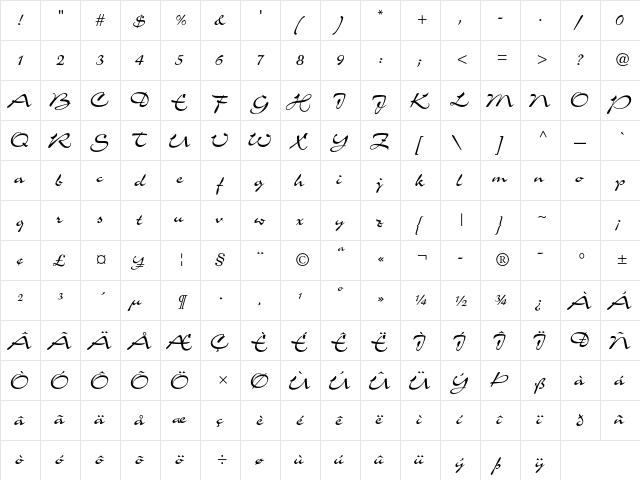
Charme Std Roman
| Designer | Helmut Matheis |
Design Context for Charme Std Typeface
Charme Std takes a measured approach to typography — its balanced proportions and neutral character make it a reliable workhorse for both digital and print work.